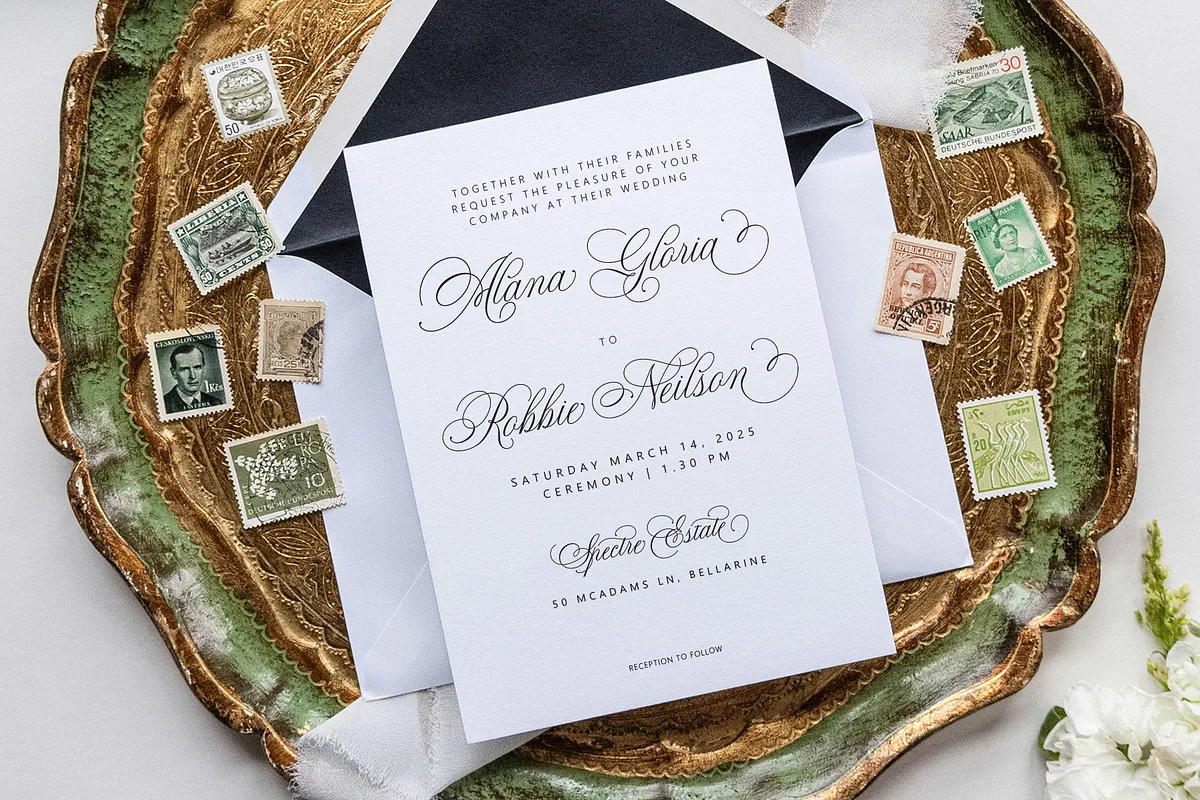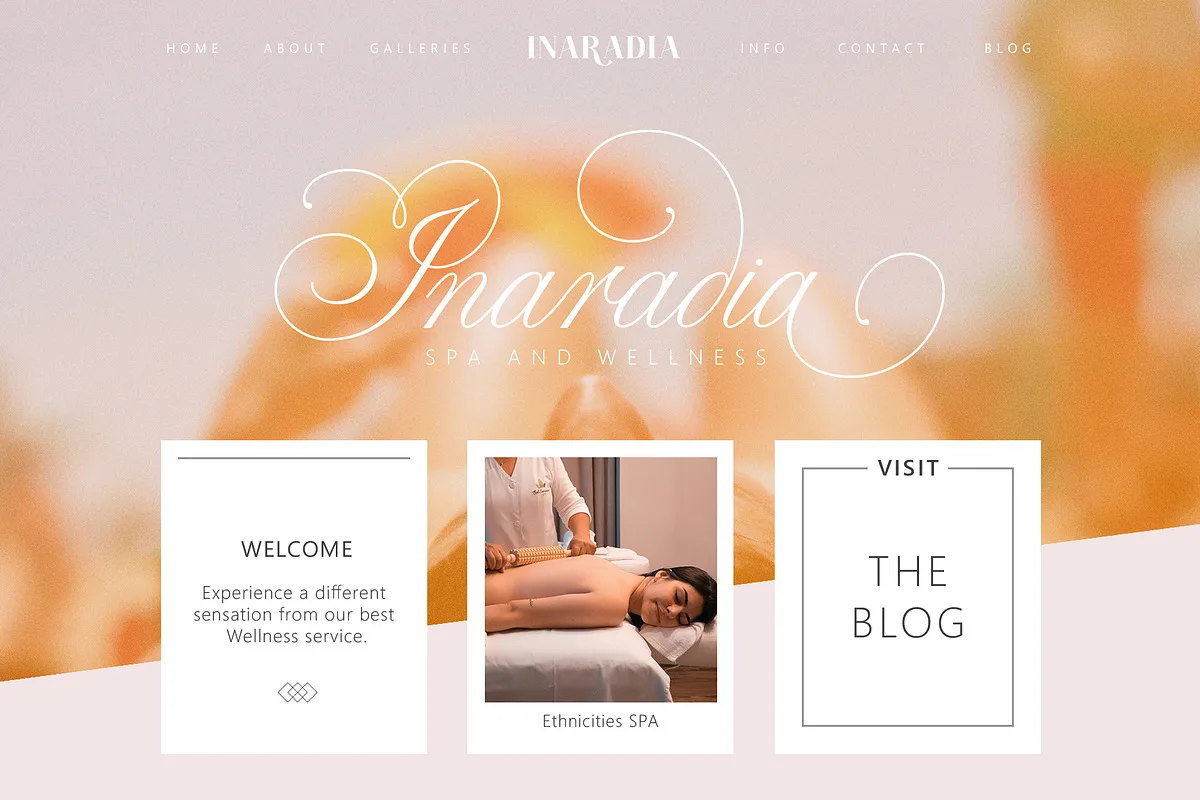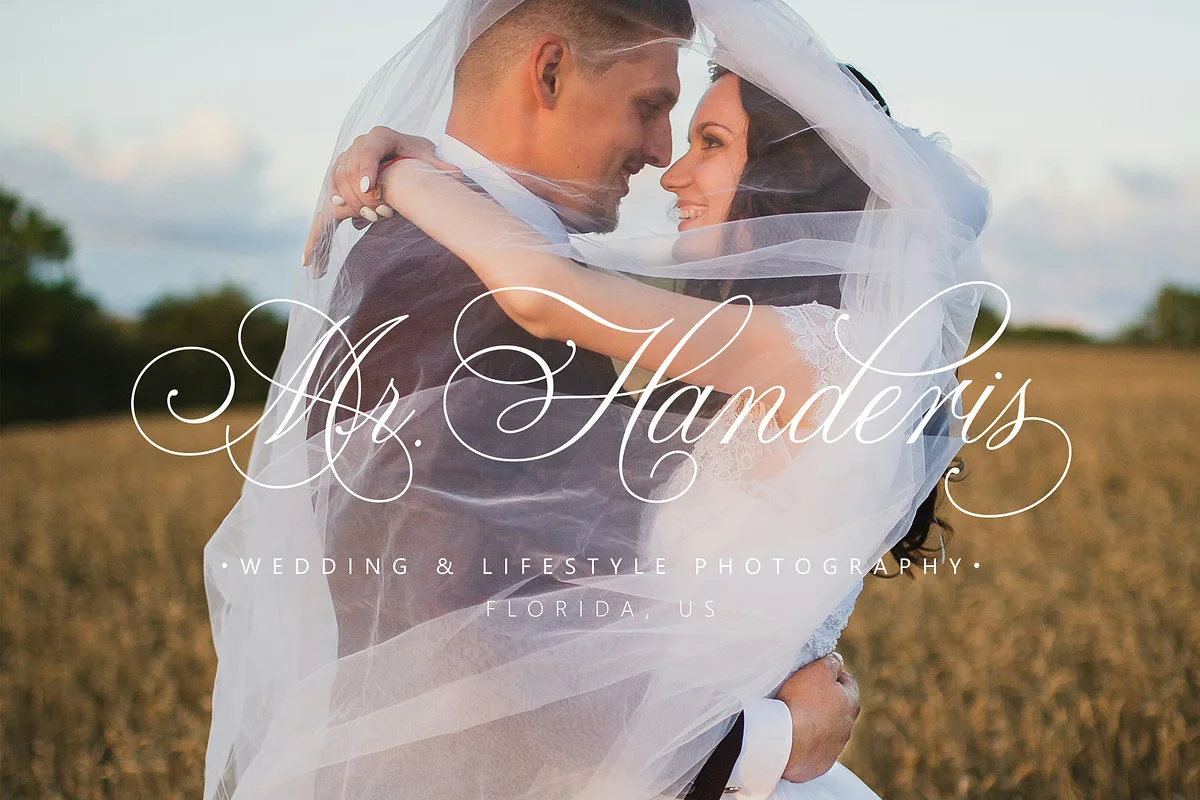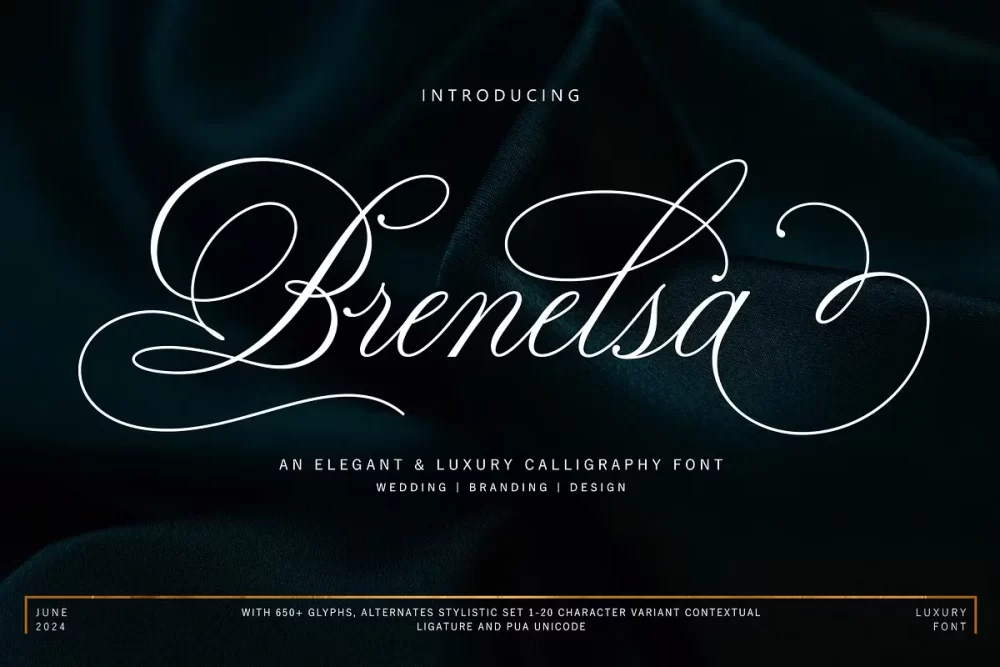
Brenelsa is a new classic calligraphy font that is suitable for branding, wedding invitations, greeting cards, posters, name card, quotes, blog header, logo, fashion, apparel, letter, stationery and other projects.
Brenelsa Script come with 650+ glyphs. The alternative characters were divided into several Open Type features such as Swash, Stylistic Sets, Stylistic Alternates, Contextual Alternates. The Open Type features can be accessed by using Open Type programs such as Adobe Illustrator, Adobe InDesign, Adobe Photoshop Corel Draw X version, And Microsoft Word. And this Font has given PUA Unicode. so that all the alternate characters can easily be accessed in full by a craftsman or designer.
Brenelsa Script : Uppercase & Lowercase, International Language & Symbols, Support Punctuation & Number, PUA Unicode, Range Standard Stylistic, Alternates Stylistic Set 1-20 Character Variant Contextual.